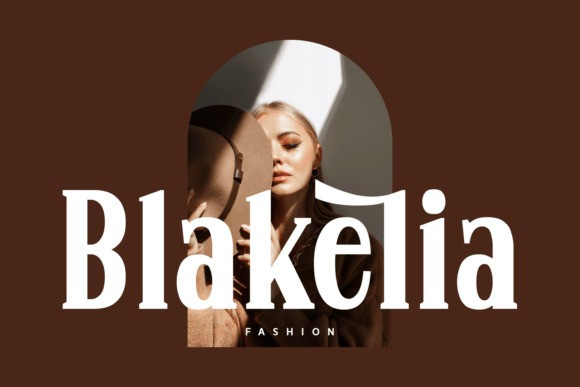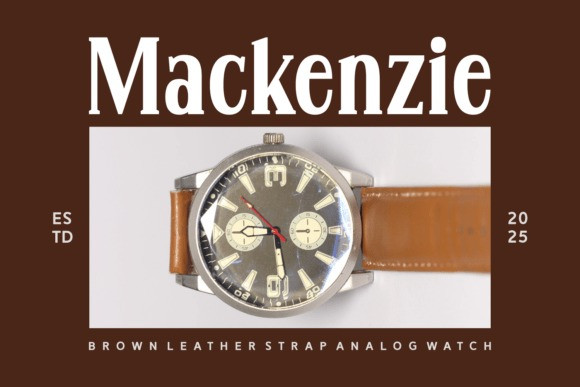
Shields Bright Font
Shields Bright Font, an elegant serif font from the year 2025. The warm, brown-toned aesthetic creates a sophisticated and high-fashion mood, perfectly suiting the font’s bold yet graceful character.